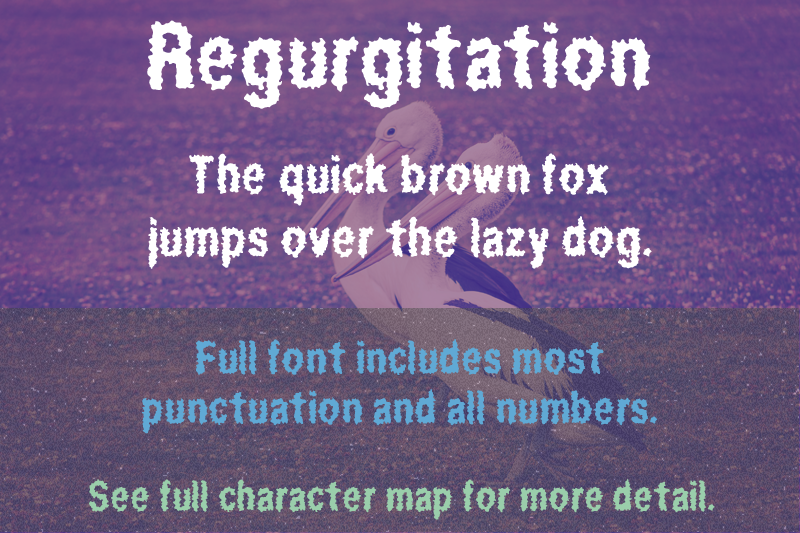
The Regurgitation font was first released in late 2000. Who knows what I was thinking to create a liquidy, gurgly font with such a terrible name? (According to my early notes, “Once again I looked at my anatomy poster to name a font, but the name suits it well. It’s kinda watery-looking.”) This is a FREE font. It contains uppercase and lowercase letters, numbers, and punctuation. You can view the full character map at QuickBrownFoxFonts.com. Whatever you use the font for, I'd love to see what you come up with! Feel free to contact me through my website and tell me about your project. |